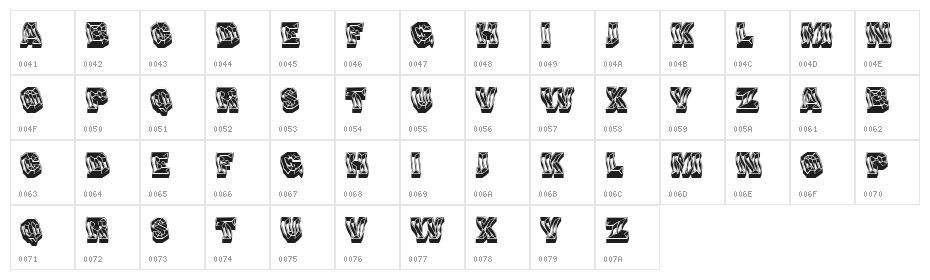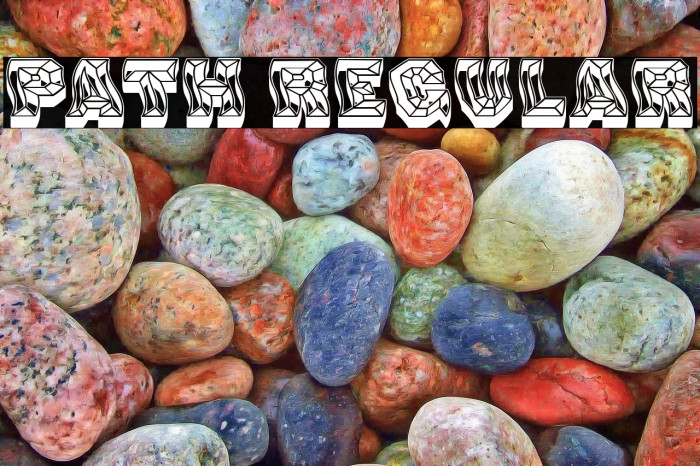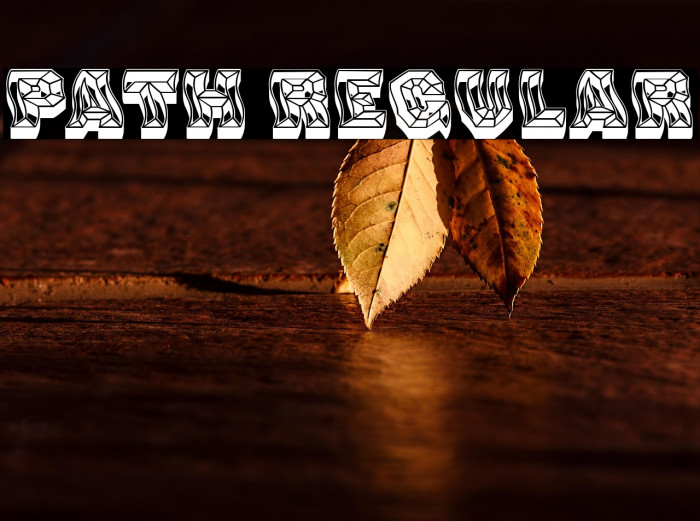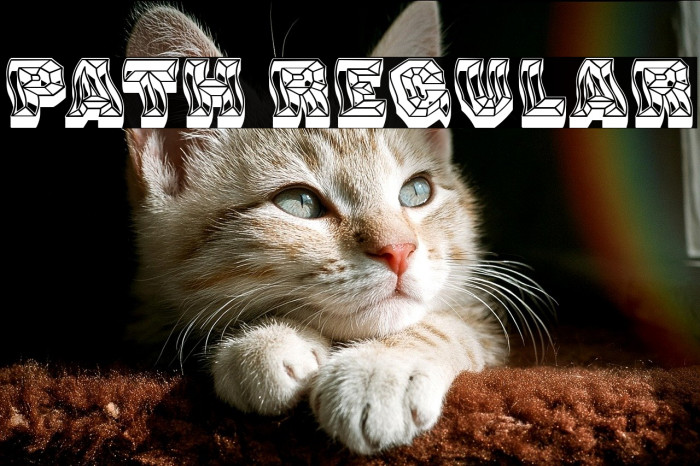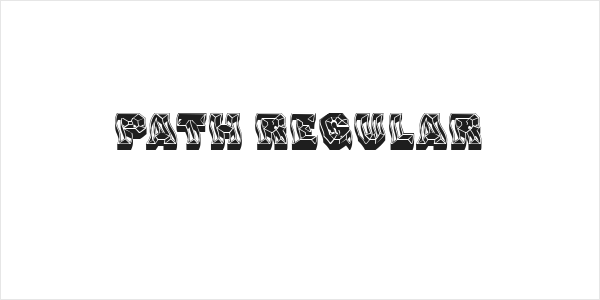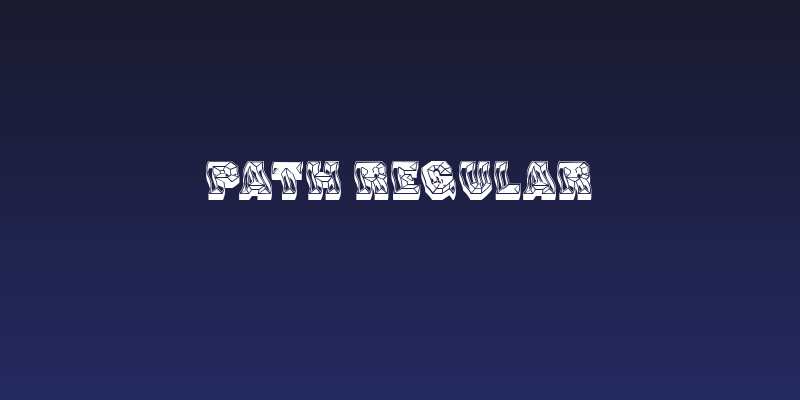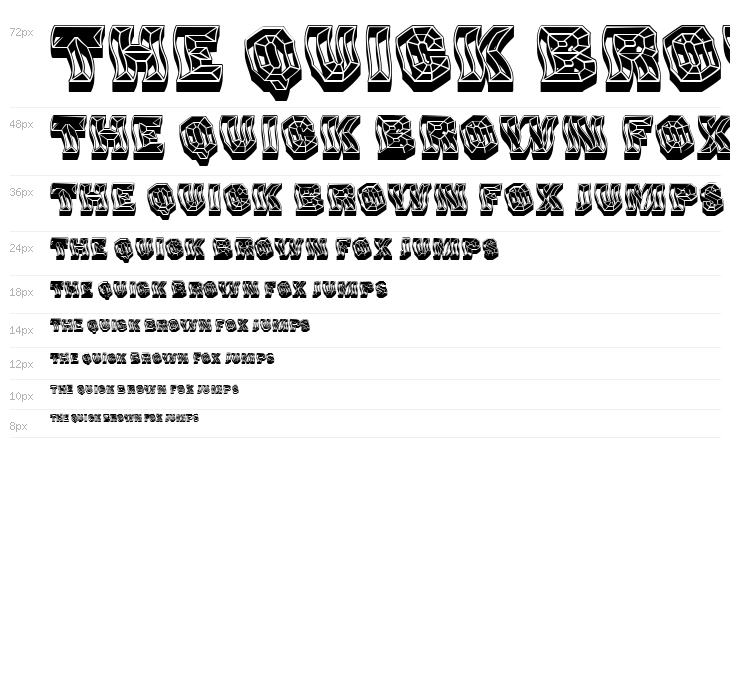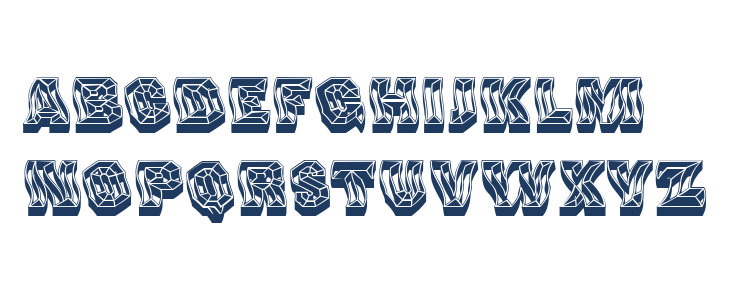
Path Regular Font
Path Regular Description
This font features a bold and striking 3D design with intricate geometric patterns within each character. The letters are constructed with a strong, block-like appearance, giving them a sense of depth and dimension. The internal detailing resembles a complex network of lines, adding a dynamic and modern touch. This font is highly decorative, making it ideal for eye-catching headlines or artistic projects. The overall style is both futuristic and edgy, with a unique aesthetic that stands out in any design context.
| Overall Style | Modern, Futuristic |
| Use Case | Headlines, Logos, Artistic projects |
| Proposed Projects | Ideal for use in posters, album covers, video game titles, and any project requiring a bold, artistic statement. |